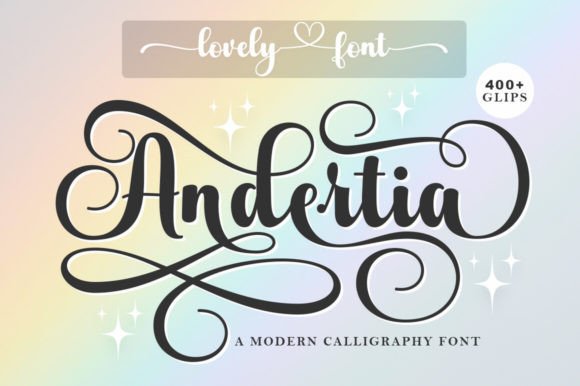
Introducing Andertia Font: The Perfect Handwritten Font for Celebrations
Are you looking for a font that can add a touch of softness and character to your designs? Look no further than Andertia Font, a beautiful handwritten font perfect for writing wedding invitations, cards, and other designs that require a personal touch. In this article, we’ll take a closer look at Andertia Font, its features, and how you can use it to elevate your designs.
What is Andertia Font?
Andertia Font is a characterful and cute handwritten font designed specifically for celebrations. Its unique and playful style makes it perfect for writing wedding invitations, cards, and other designs that require a touch of softness and character. The font is designed to be versatile and can be used for a variety of projects, from formal to informal designs.
Key Features of Andertia Font
Andertia Font comes with several key features that make it a great choice for designers. Some of its notable features include:
- PUA Coded: Andertia Font is PUA coded, which means you can easily access all the glyphs and ligatures. This makes it easy to use and customize the font to suit your needs.
- Handwritten Style: The font has a beautiful handwritten style that adds a personal touch to your designs.
- Characterful and Cute: Andertia Font is a characterful and cute font that is perfect for celebrations.
- Soft and Elegant: The font has a soft and elegant feel that makes it perfect for writing wedding invitations, cards, and other designs.
Use Cases for Andertia Font
Andertia Font is a versatile font that can be used for a variety of projects. Here are some use cases where Andertia Font is particularly effective:
- Wedding Invitations: Andertia Font is perfect for writing wedding invitations. Its soft and elegant feel makes it a great choice for formal and informal wedding invitations.
- Cards: The font is also great for writing cards, including birthday cards, anniversary cards, and other celebratory cards.
- Social Media Graphics: Andertia Font can be used to create social media graphics, including Facebook posts, Instagram posts, and other social media graphics.
- Branding: The font can also be used for branding, including logos, business cards, and other marketing materials.
Benefits of Using Andertia Font
There are several benefits to using Andertia Font for your designs. Some of the benefits include:
- Unique Style: Andertia Font has a unique and playful style that sets it apart from other fonts.
- Elegant Feel: The font has an elegant feel that makes it perfect for formal and informal designs.
- Easy to Use: Andertia Font is easy to use and customize, thanks to its PUA coding.
- Versatile: The font is versatile and can be used for a variety of projects.
Tips and Tricks for Using Andertia Font
Here are some tips and tricks for using Andertia Font:
- Use it for Headings: Andertia Font is perfect for headings and titles.
- Pair it with Other Fonts: Pair Andertia Font with other fonts to create a unique and interesting design.
- Experiment with Colors: Experiment with different colors to find the perfect combination for your design.
- Use it for Body Text: Andertia Font can also be used for body text, especially for short paragraphs.
Andertia Font is a beautiful handwritten font perfect for celebrations. Its unique and playful style makes it perfect for writing wedding invitations, cards, and other designs that require a touch of softness and character. With its PUA coding, the font is easy to use and customize. Whether you’re a designer or a DIY enthusiast, Andertia Font is a great choice for your next project.
- What is Andertia Font? Andertia Font is a characterful and cute handwritten font designed specifically for celebrations.